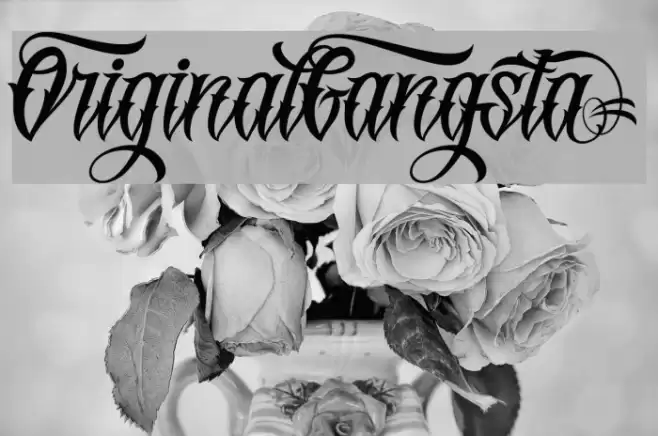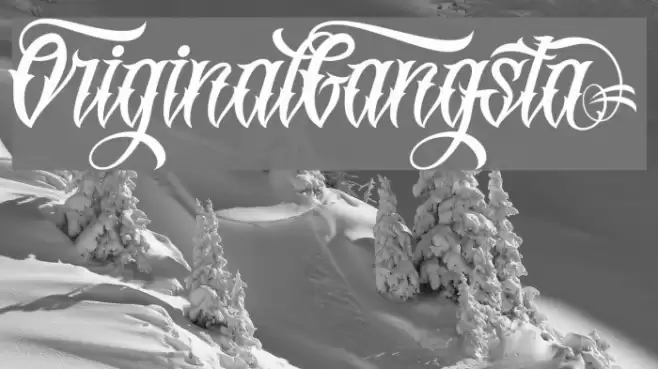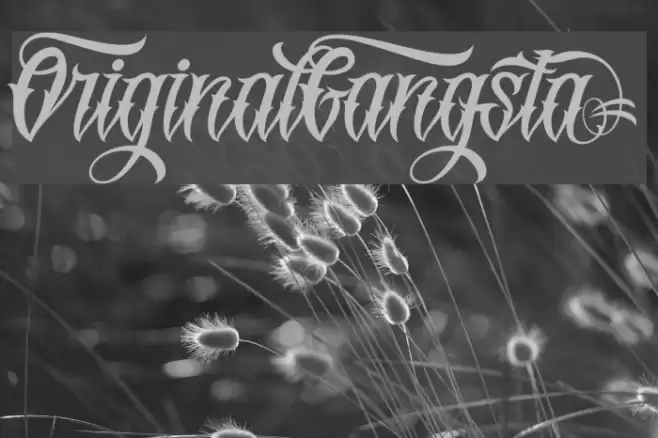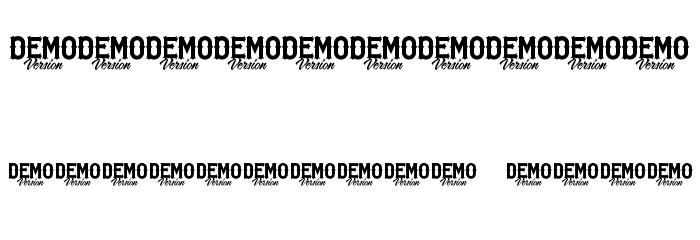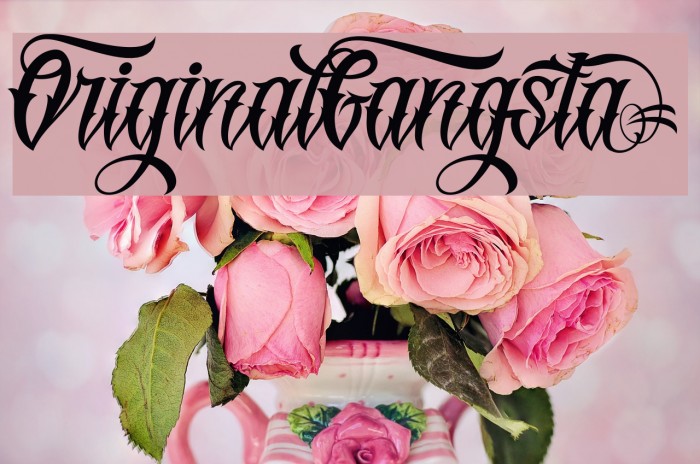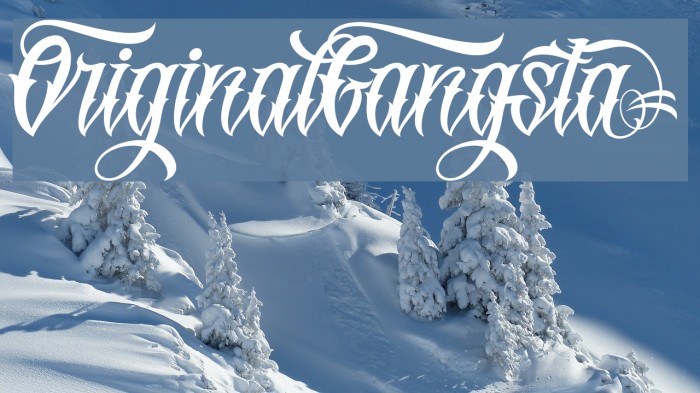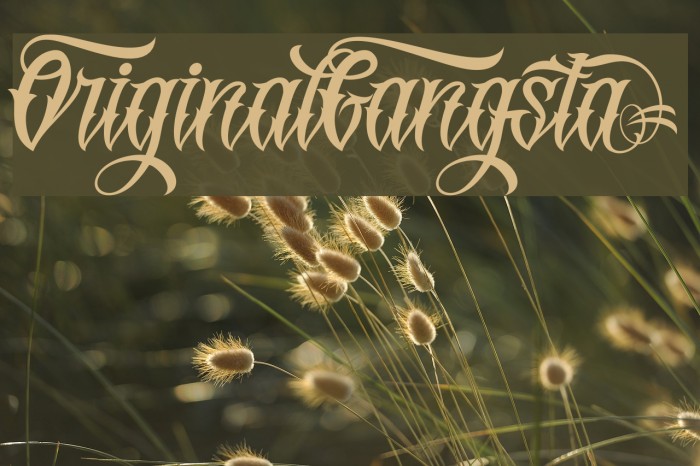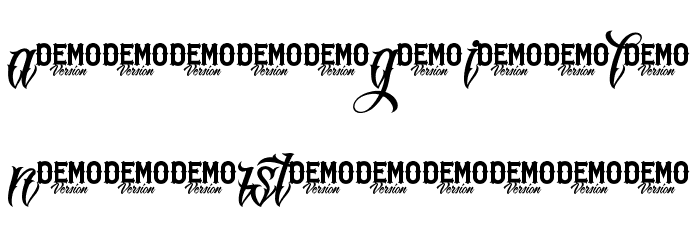
OriginalGangstA Font
OriginalGangstA Description
This font features a bold and dynamic script style with intricate flourishes and swashes that give it a distinctive, elegant appearance. The uppercase letters are particularly ornate, with exaggerated loops and curves that create a sense of movement and flair. The lowercase letters maintain a consistent flow, complementing the uppercase with their own subtle embellishments. The overall design is both sophisticated and expressive, making it suitable for projects that require a touch of elegance and personality. The font's unique style is ideal for creating eye-catching headlines, logos, and branding materials that stand out.
A bold, dynamic script font with ornate flourishes and elegant curves from Uncategorized fonts.
- Proposed Projects: Ideal for wedding invitations, luxury branding, elegant logos, and decorative headlines.
- Use Case: Logos, Headlines, Invitations